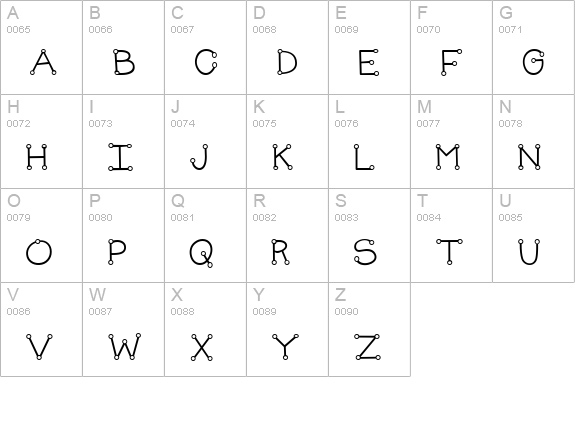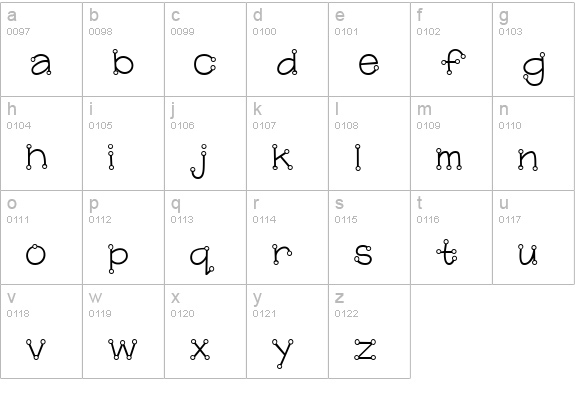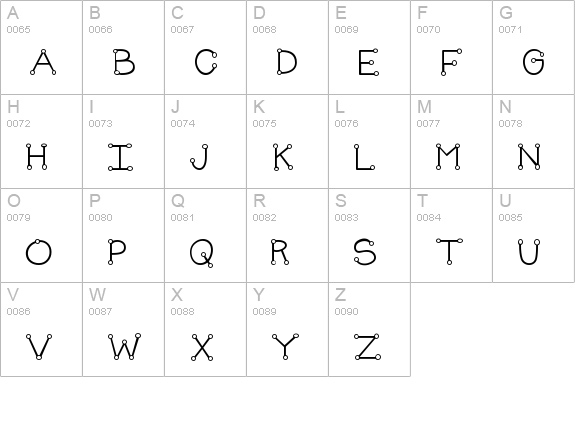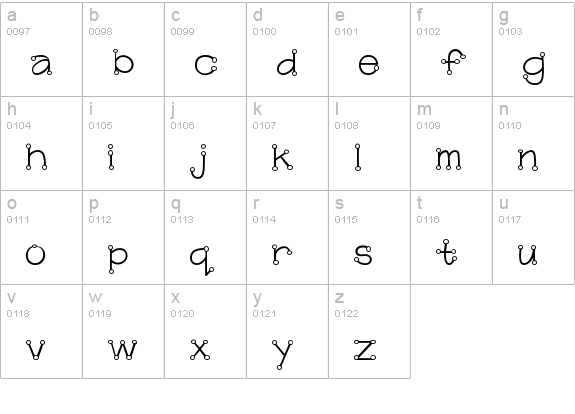
Ck Circle Serif Font Details
Introducing Ck Circle Serif, a timeless and elegant font that effortlessly combines classic serif elements with modern circular shapes. This unique typeface exudes sophistication and charm, making it perfect for a wide range of design projects. With its clean lines and balanced proportions, Ck Circle Serif is a versatile font that can be used for anything from branding and editorial design to invitations and packaging. What sets Ck Circle Serif apart is its seamless blend of traditional serifs with contemporary circular details, creating a harmonious and eye-catching look. Whether you're looking to add a touch of elegance to your graphic design work or elevate your branding with a sophisticated font choice, Ck Circle Serif is the perfect choice. Best of all, Ck Circle Serif is available for free download at FontsMarket.com, making it accessible to designers of all levels. Don't miss out on the opportunity to add this stunning font to your collection and elevate your design projects with its timeless appeal. Download Ck Circle Serif today and let your creativity shine!